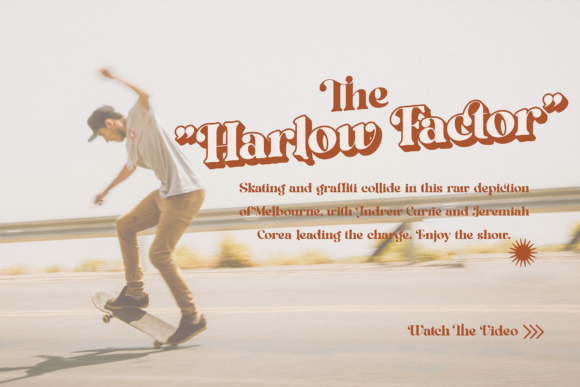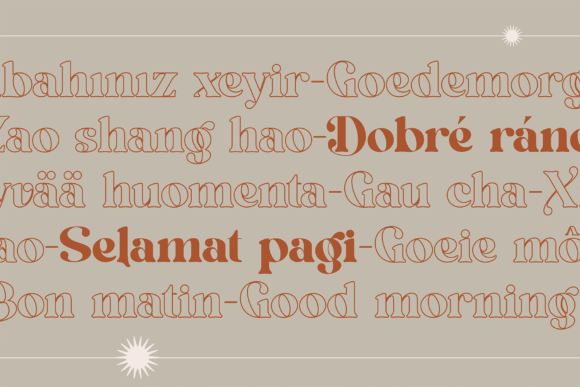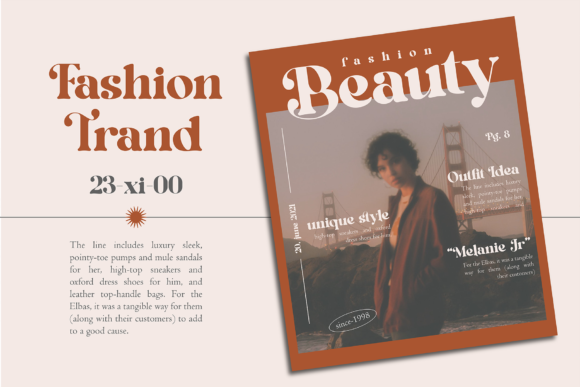
Introduction to Quarisma Font
Qarisma is a modern and bold serif font.
Qarisma is a modern and bold serif font. It is very suitable for titles, as it has the potential to elevate the look of your projects and make the words stand above the background
Key Features of Quarisma Font